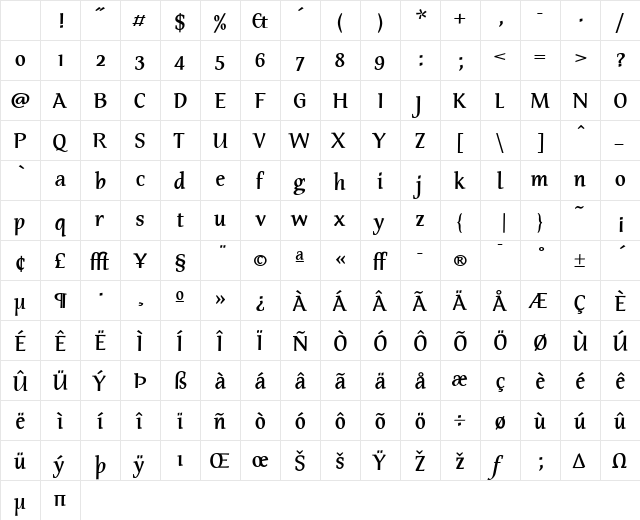
Complete Tarquinius DemiBold glyph index. Displaying only characters natively supported by Tarquinius DemiBold font.
Tarquinius is a composed and adaptable typeface that performs quietly and consistently across a wide range of design contexts. Its bold stroke weight gives it real presence on the page.